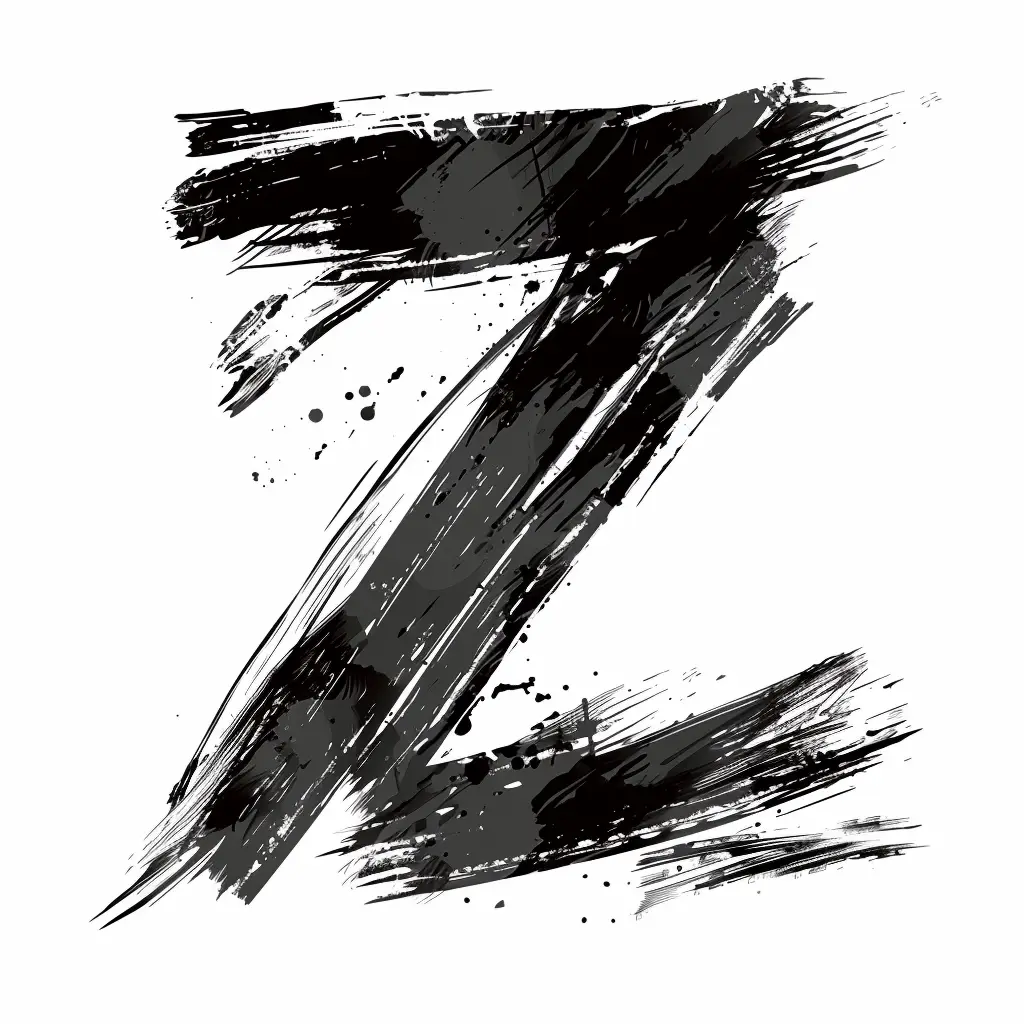
The image features a stylized letter "Z" rendered in a bold, grungy brushstroke style. The design uses varying shades of black and gray, with textured brush strokes, splatters, and rough edges, creating a dynamic, artistic effect against a plain white background.